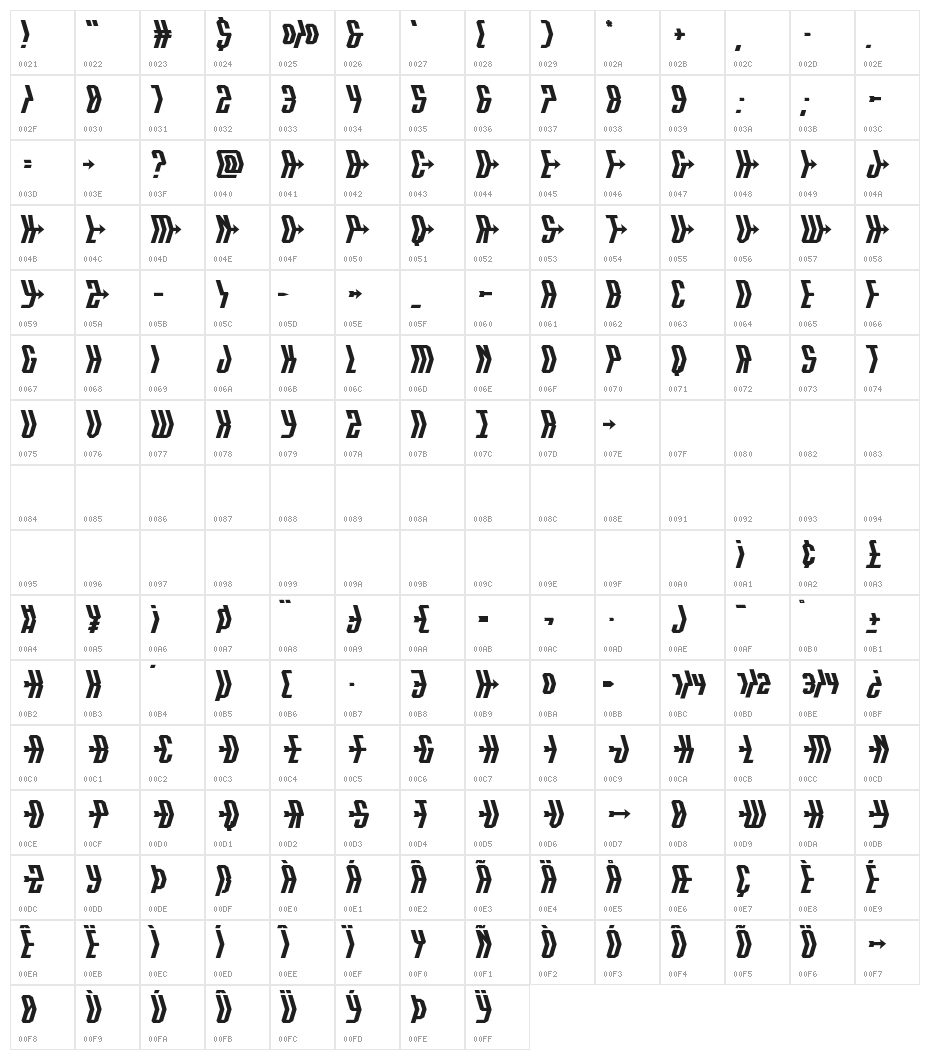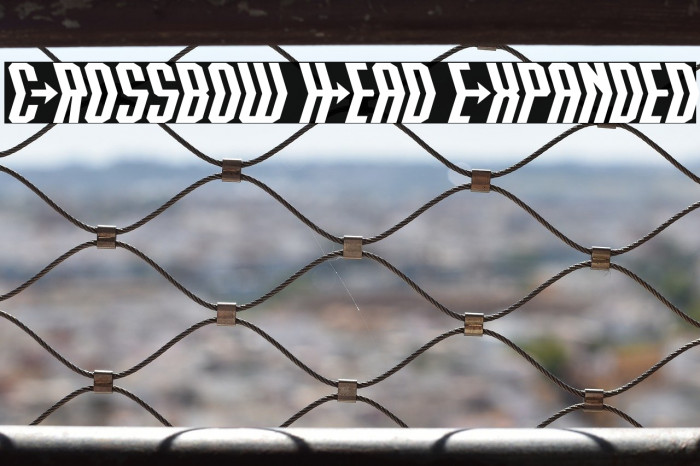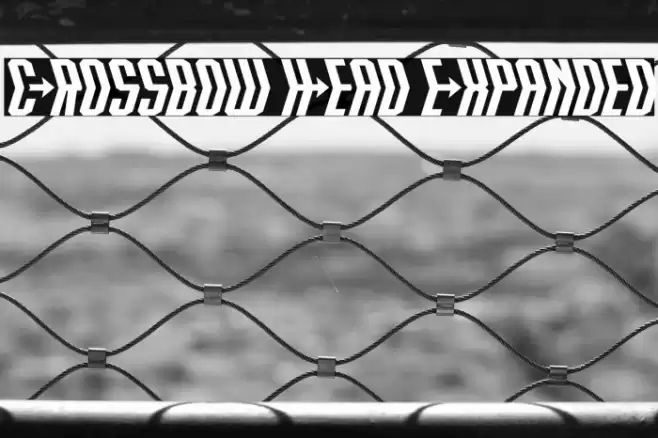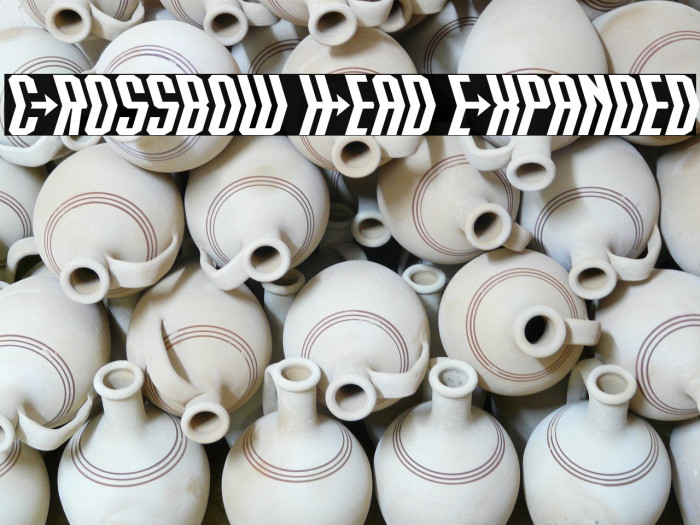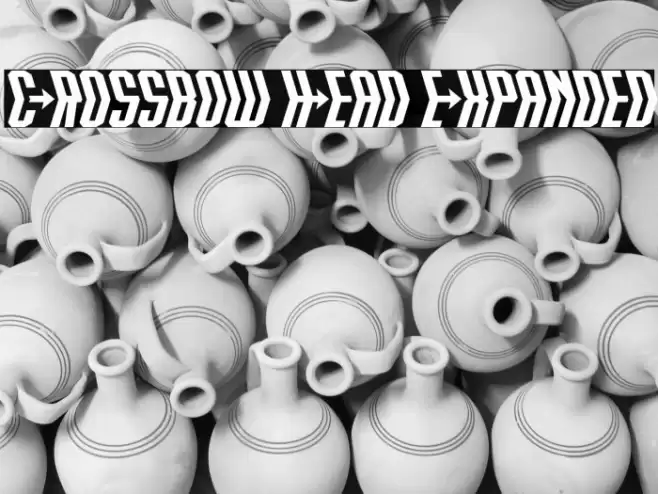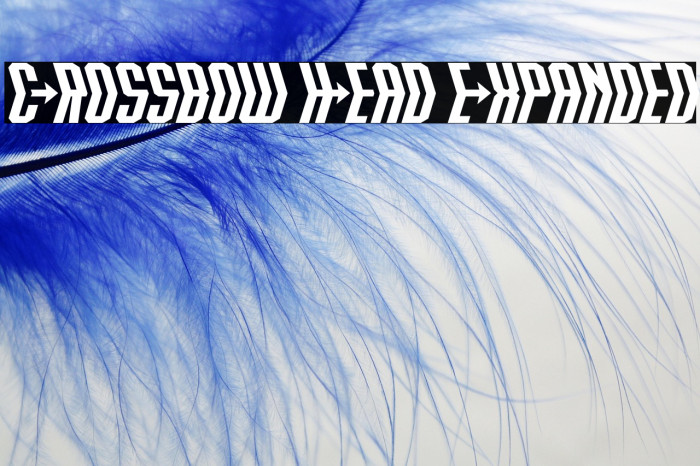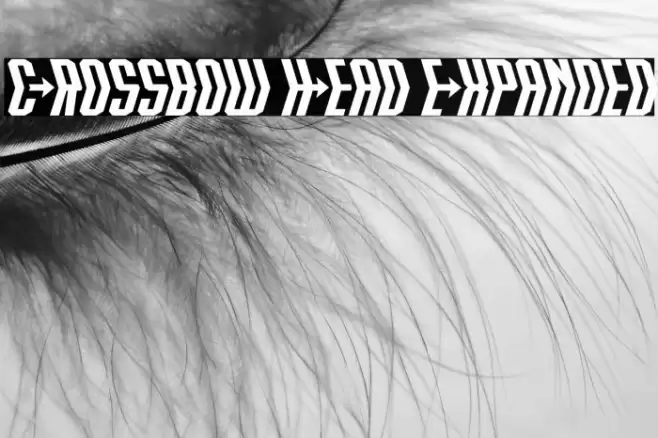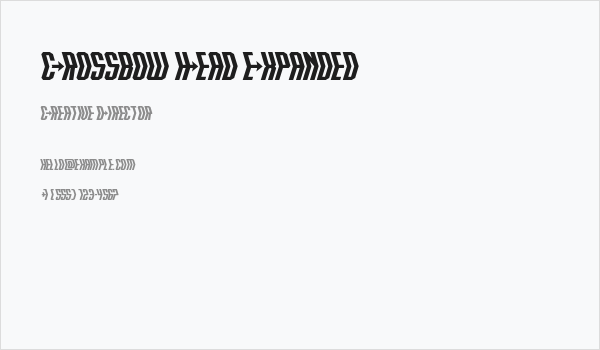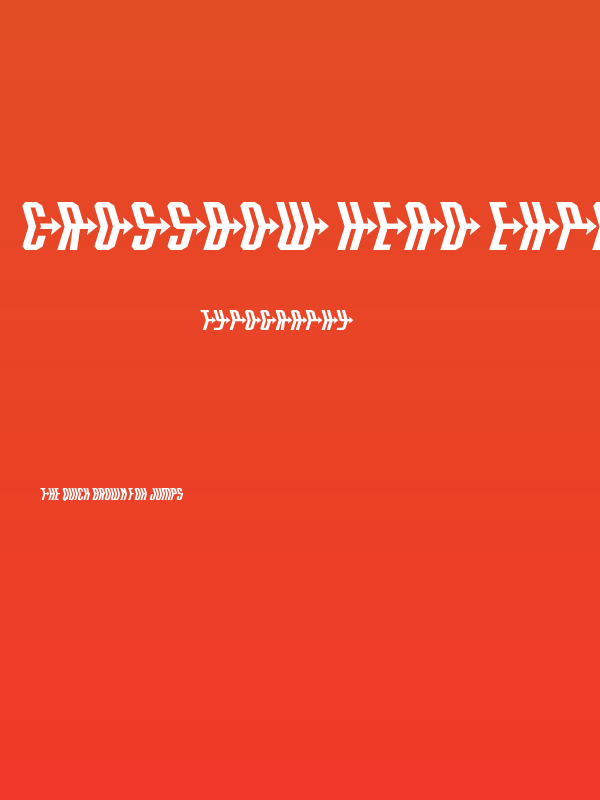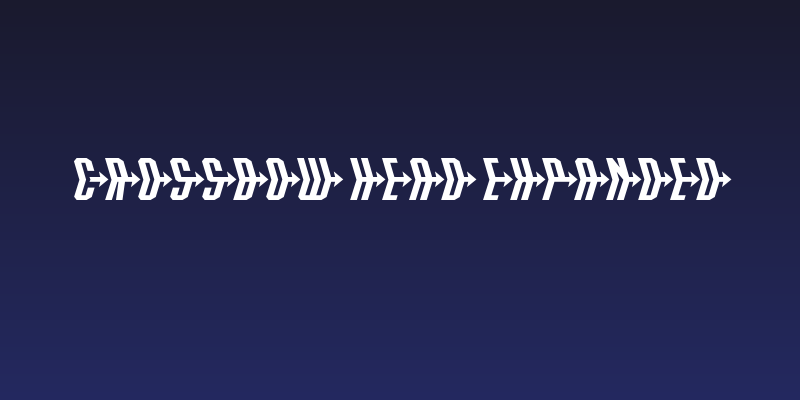
Crossbow Head Expanded Font
Crossbow Head Expanded Description
This font features a bold and dynamic design with a futuristic and angular aesthetic. The characters are sharply defined with a consistent stroke width, creating a sense of movement and energy. The uppercase letters are particularly striking, with a geometric style that emphasizes sharp angles and straight lines. The numbers and special characters maintain this bold and aggressive look, making the font suitable for attention-grabbing headlines or logos. The overall design is cohesive, with a strong emphasis on symmetry and alignment, giving it a modern and edgy appearance.
| Proposed Projects | Ideal for use in sci-fi themed projects, video game titles, sports branding, or any design requiring a bold and modern look. |